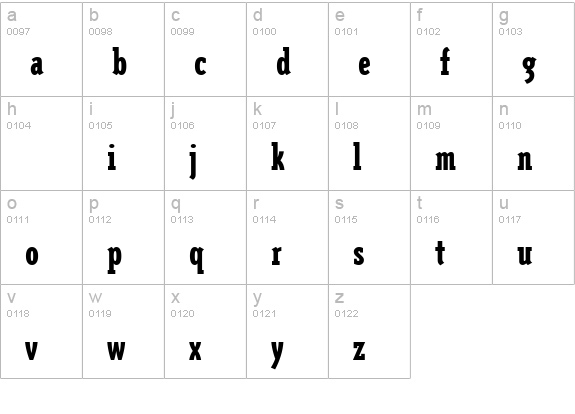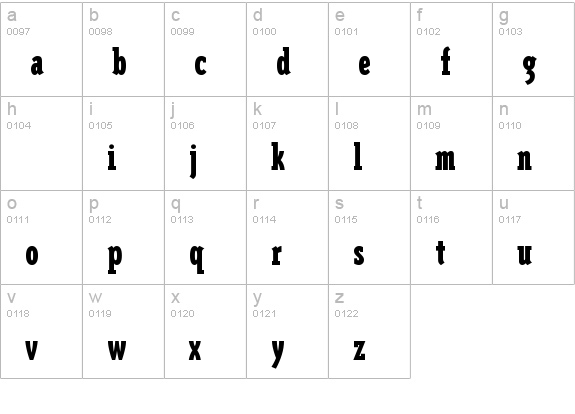
TriplexCondSerif-Black Font Details
TriplexCondSerif-Black is a maximum-weight, dramatic variant in the TriplexCondSerif typeface family \xE2\x80\x94 well suited to maximum-impact headlines, posters, and packaging.
TriplexCondSerif-Black is a stunning and bold font that exudes a sense of sophistication and power. Its thick lines and sharp serifs give it a strong presence, making it perfect for headlines, logos, and other design projects that demand attention. This font is the epitome of elegance, with its sleek and refined appearance. The condensed letterforms add a touch of modernity, making it a versatile choice for both contemporary and classic designs. One of the best things about TriplexCondSerif-Black is that it is free. That's right, you can download this amazing font for absolutely no cost at FontsMarket.com. This means that you can elevate your design projects without breaking the bank. Whether you're a professional designer or a hobbyist, TriplexCondSerif-Black is a must-have in your font collection. Its timeless beauty and impactful presence will make your designs stand out from the crowd. So why wait? Head over to FontsMarket.com and download TriplexCondSerif-Black today, and let your creativity soar.